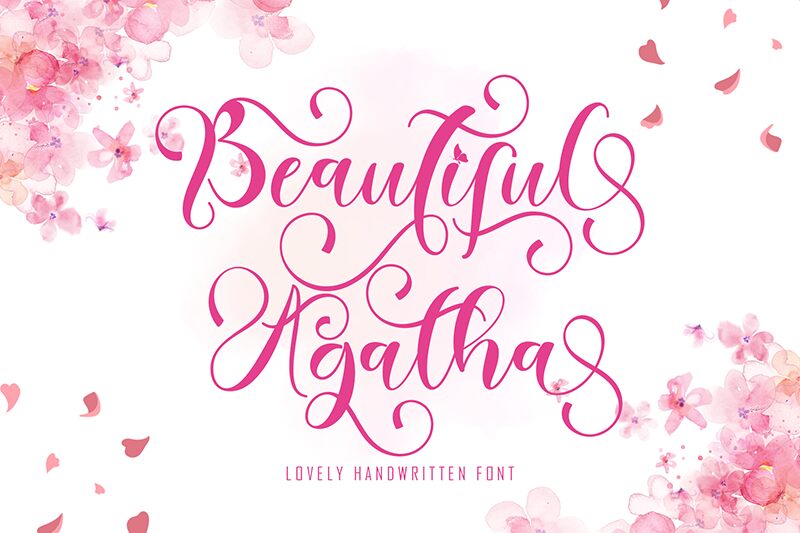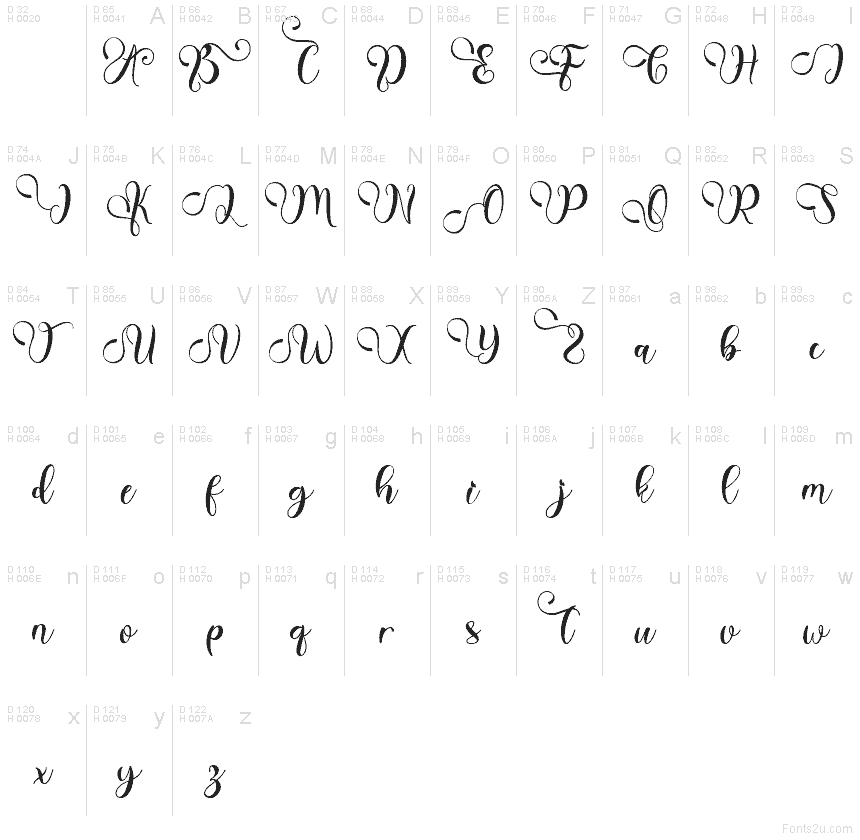
Beautiful Agatha
Beautiful Agatha font by Yoga Letter is a free calligraphy font that captures the look of hand-dipped ink on cotton paper. Its looping swashes, sweeping rhythm, and slightly textured strokes feel romantic and personal, like a name carefully written on a keepsake envelope. The typeface balances airy curves with confident, inky weight, giving your compositions an elegant flow without feeling stiff or formal.
Using Beautiful Agatha, you can bring warmth and charm to wedding invitations, save-the-dates, bridal shower cards, boutique logos, cosmetic packaging, and soft, feminine social media graphics. This free font shines when set large, letting the curls and flourishes breathe. Pair it with a clean, minimalist sans serif for supporting text to keep everything readable while letting the script steal the spotlight.